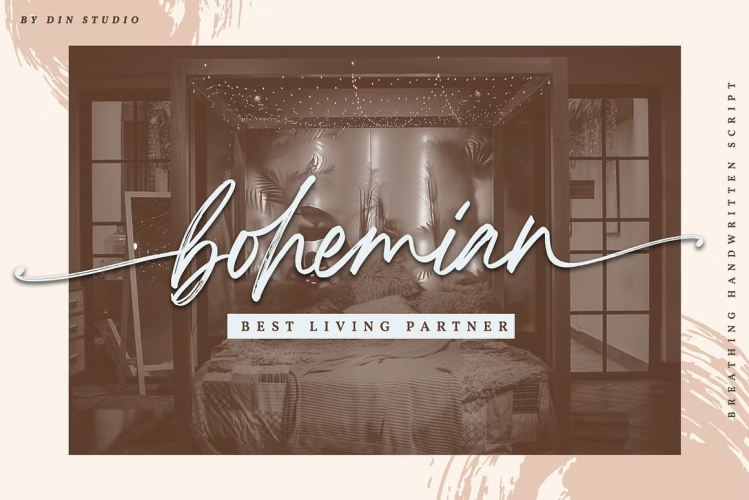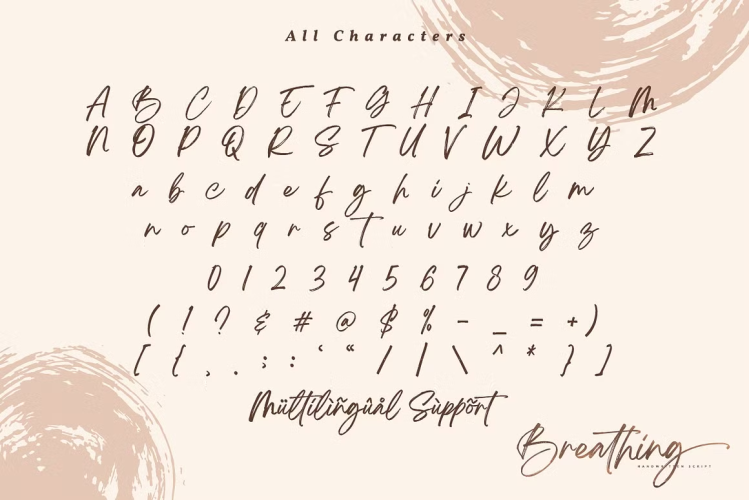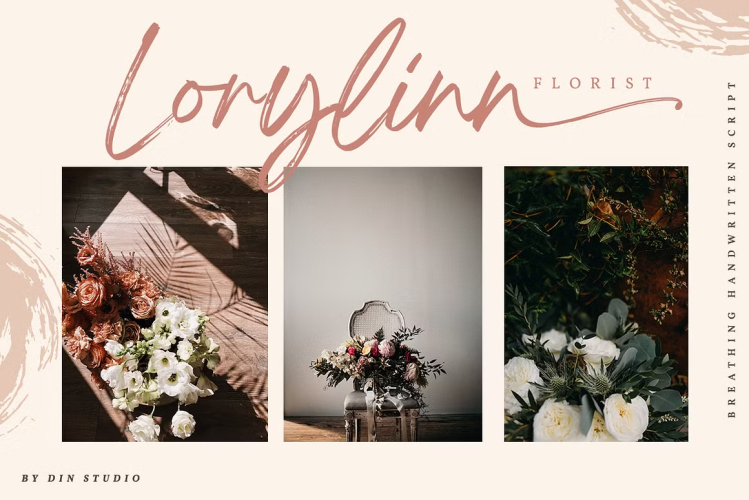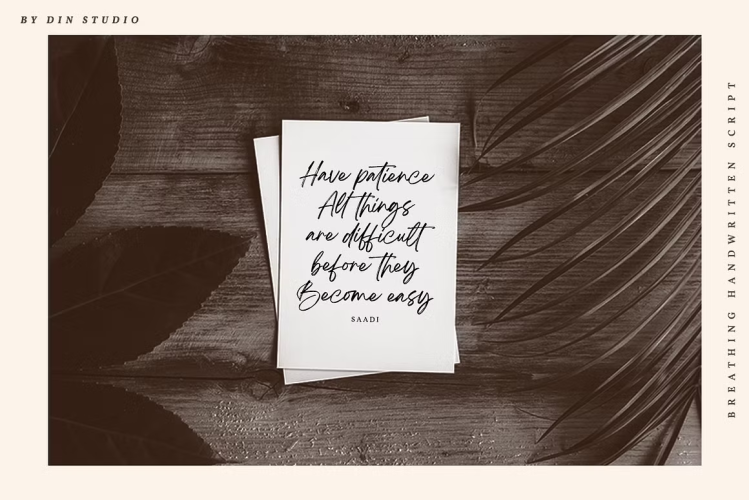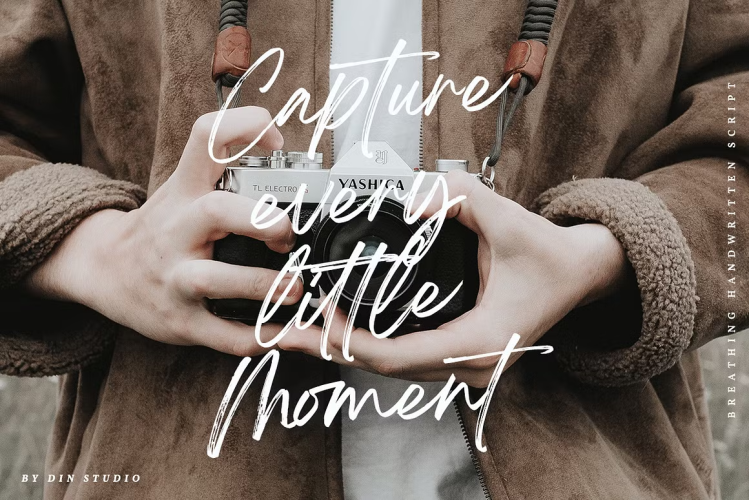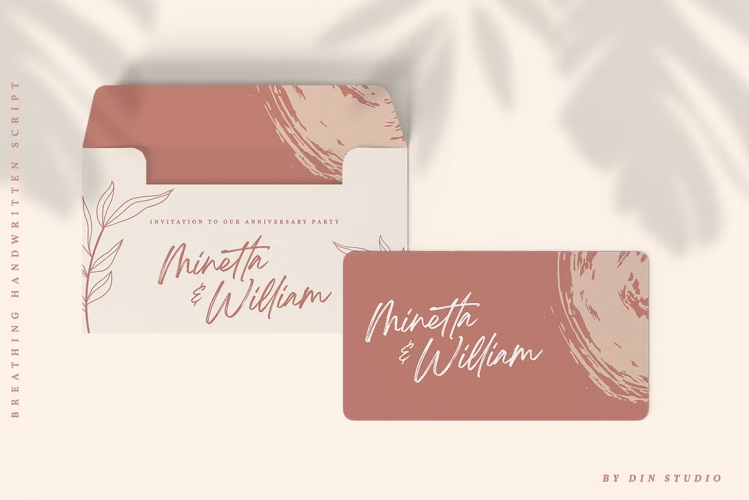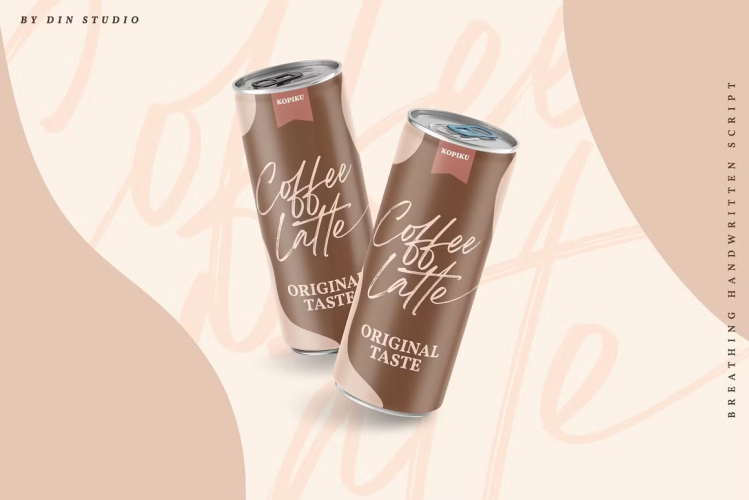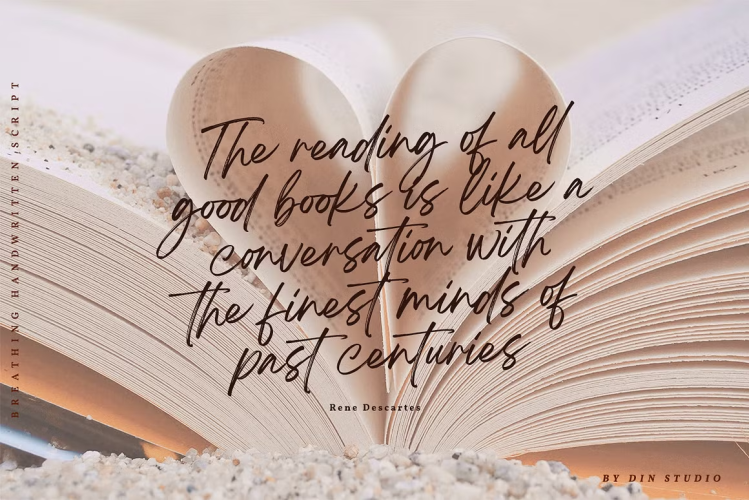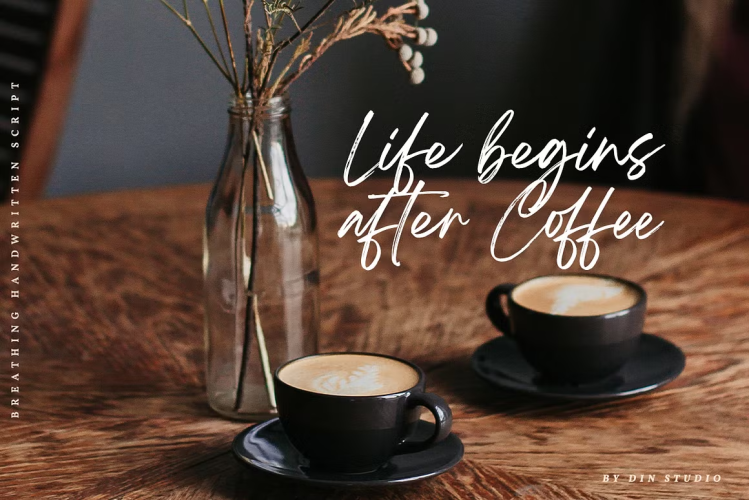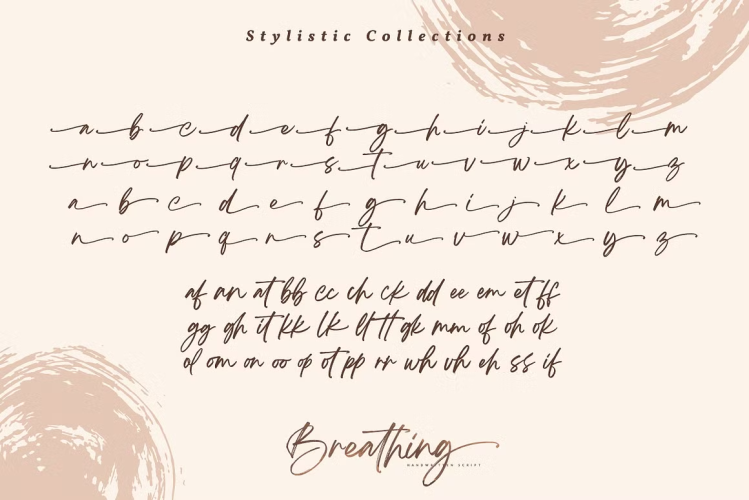
Breathing Font
Breathing Font is a fantastic brush signature font extensively developed for quality brand packages. Each letter has a fresh and stunning look, which increases the desig…
Breathing Font is a fantastic brush signature font extensively developed for quality brand packages. Each letter has a fresh and stunning look, which increases the design’s uniqueness and artistic nature. Designed by our excellent typographer, Breathing Font is a multifunctional font that will suit various applications.
The Breathing Font adds a touch of style and class to any undertaking through the eye-drawing posters, striking banners, memorable logos, and beautiful book covers. Its applications are endless: texts, greeting cards, clothing, social media, and much more.
By previewing the font and exploring its brushstrokes, you can find new and creative ways to apply it to your designs. The precise and charming brushstrokes of the Breathing Font will leave a lasting impression on your audience, making your designs more stylish and captivating.
Where Breathing Font works best
Breathing Font brings a personal, handwritten warmth to invitations, menus and place cards.
Craft brands — coffee, cosmetics, bakery — use scripts like Breathing Font for signature-style logos and labels.
Pair Breathing Font with a plain sans for quotes, stories and Pinterest pins that feel handmade.
What is Breathing Font good for?
Breathing Font is a Script And Handwritten typeface tagged Branding, Breathing, Creative, Editorial. It works well for headlines, logos, posters, social media graphics and branding projects that need a distinctive script and handwritten look.